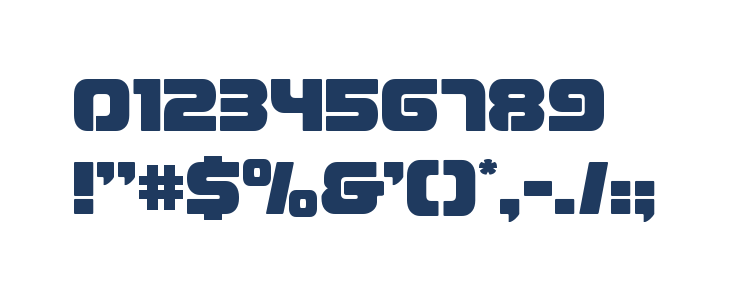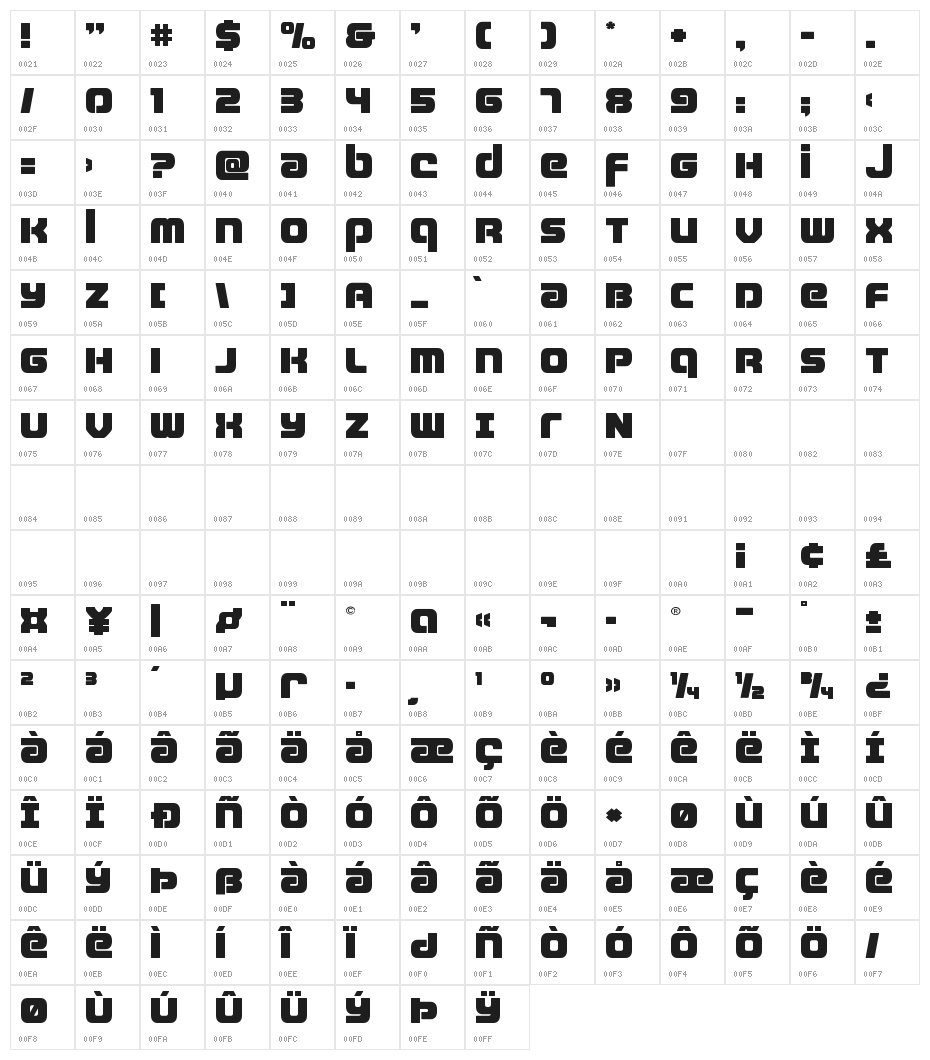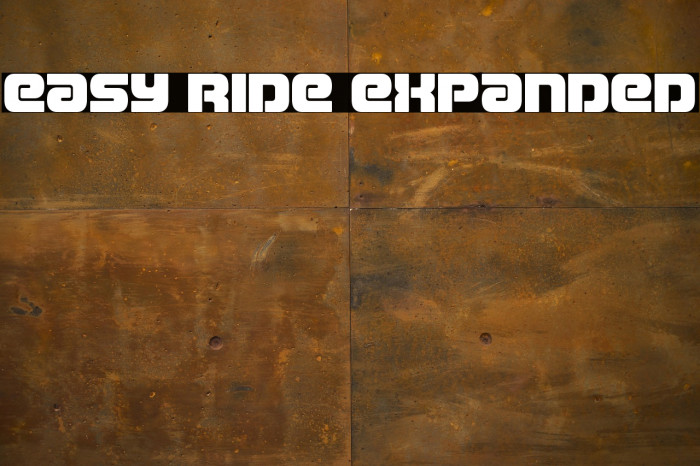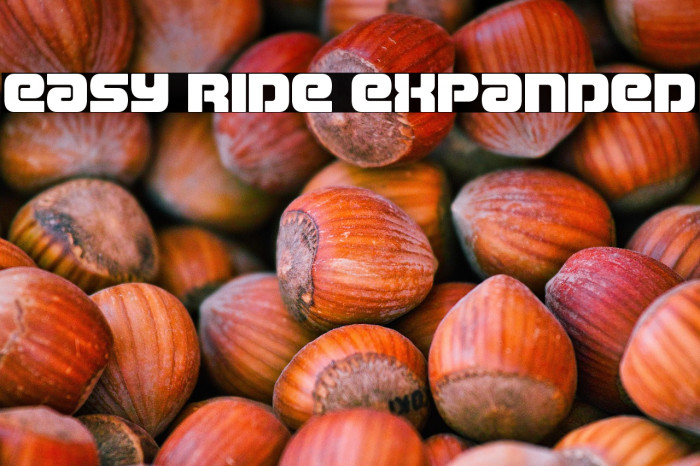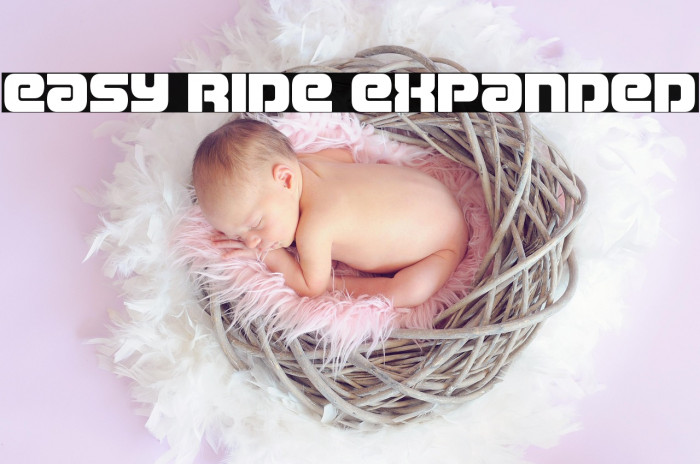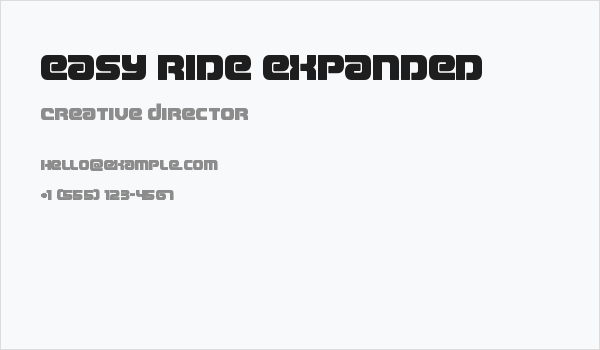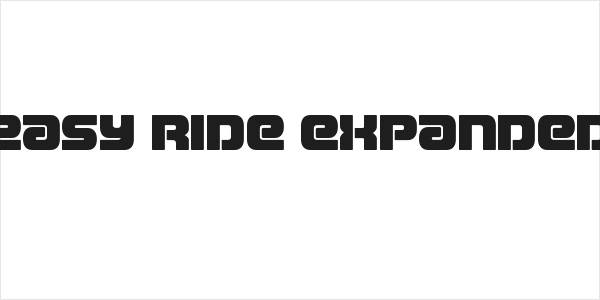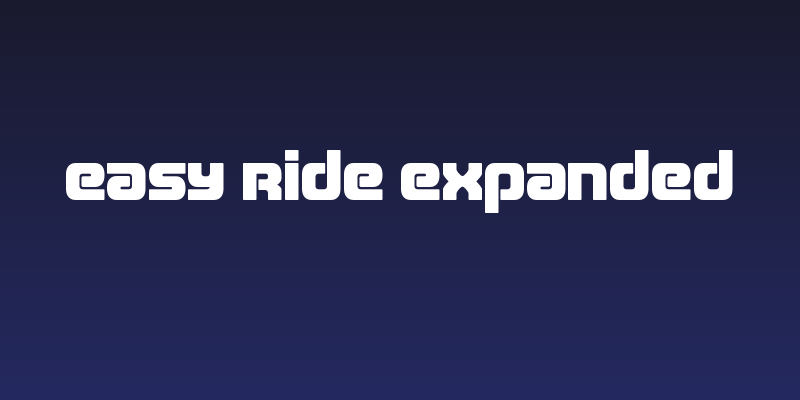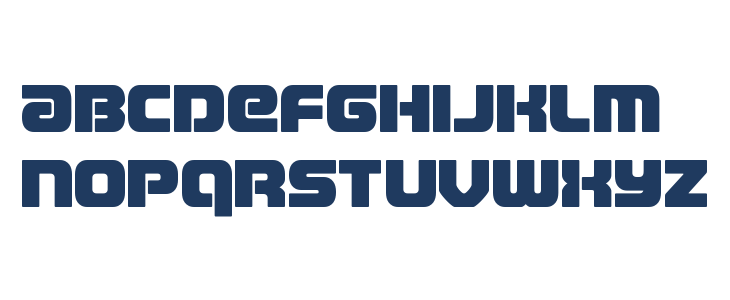
Easy Ride Expanded Font
Easy Ride Expanded Description
This font features a bold and modern design with a distinctly geometric and blocky appearance. The characters are wide and have a uniform thickness, giving them a strong and impactful presence. The rounded edges soften the overall look, adding a touch of friendliness to the otherwise robust style. The uppercase and lowercase letters maintain a consistent height, contributing to a cohesive and harmonious appearance. The numerals and special characters follow the same design principles, ensuring a seamless integration across different uses.
| Proposed Projects | Ideal for branding, advertising, posters, and any project requiring a strong, modern aesthetic. |